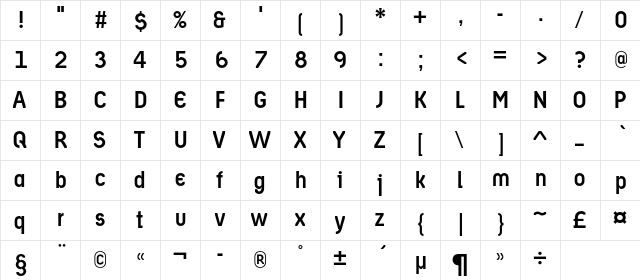
AriergardMediumC Regular
Design Context for AriergardMediumC Typeface
AriergardMediumC takes a measured approach to typography — its balanced proportions and neutral character make it a reliable workhorse for both digital and print work.